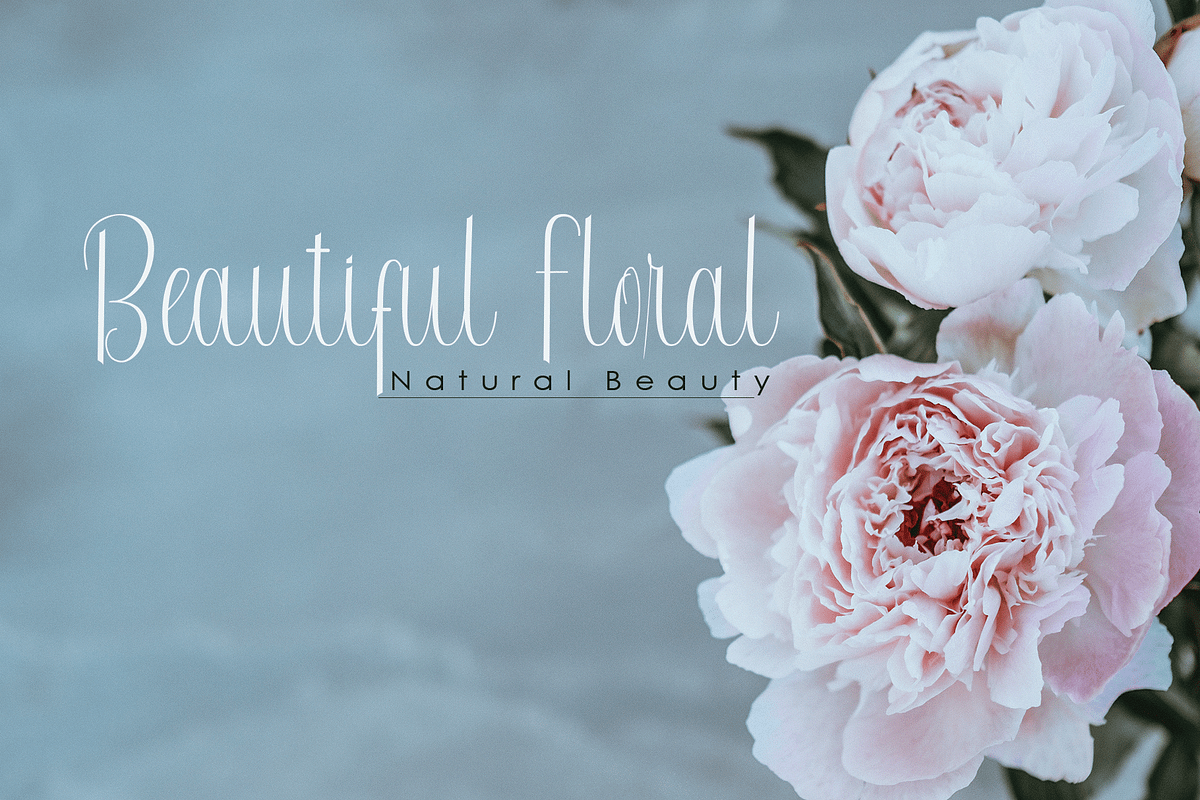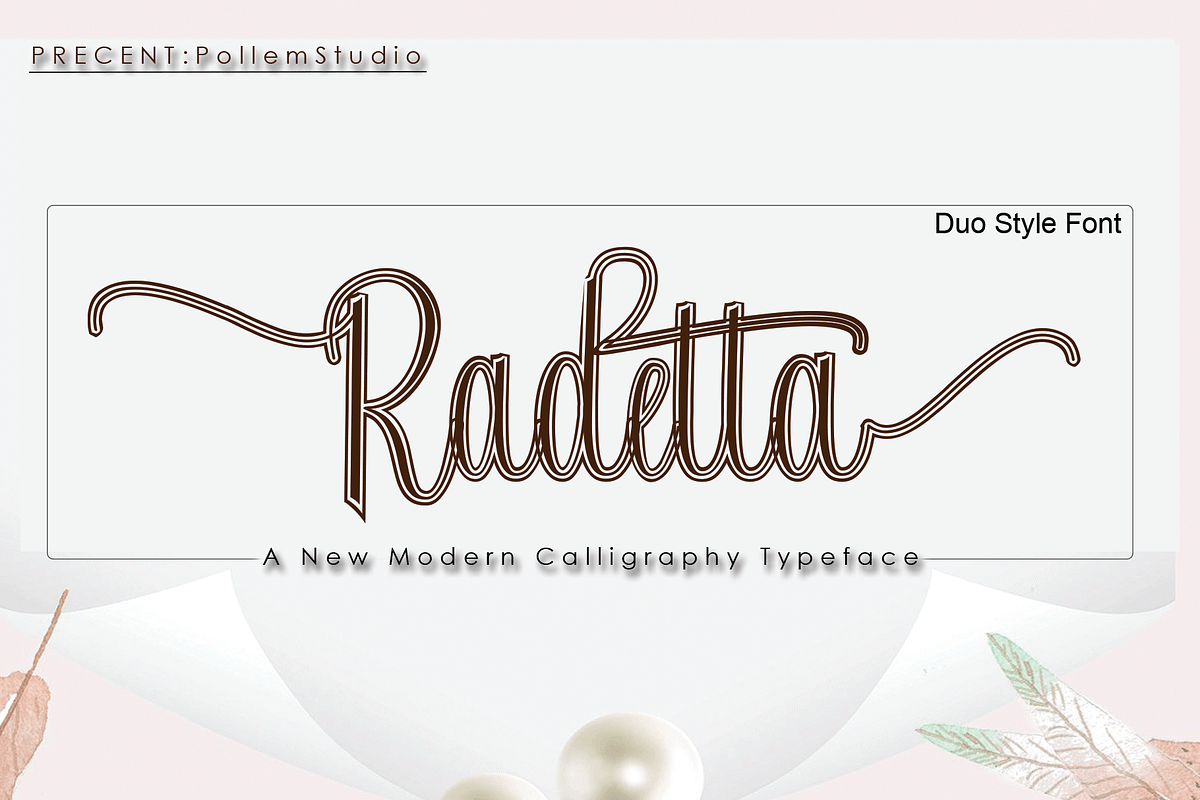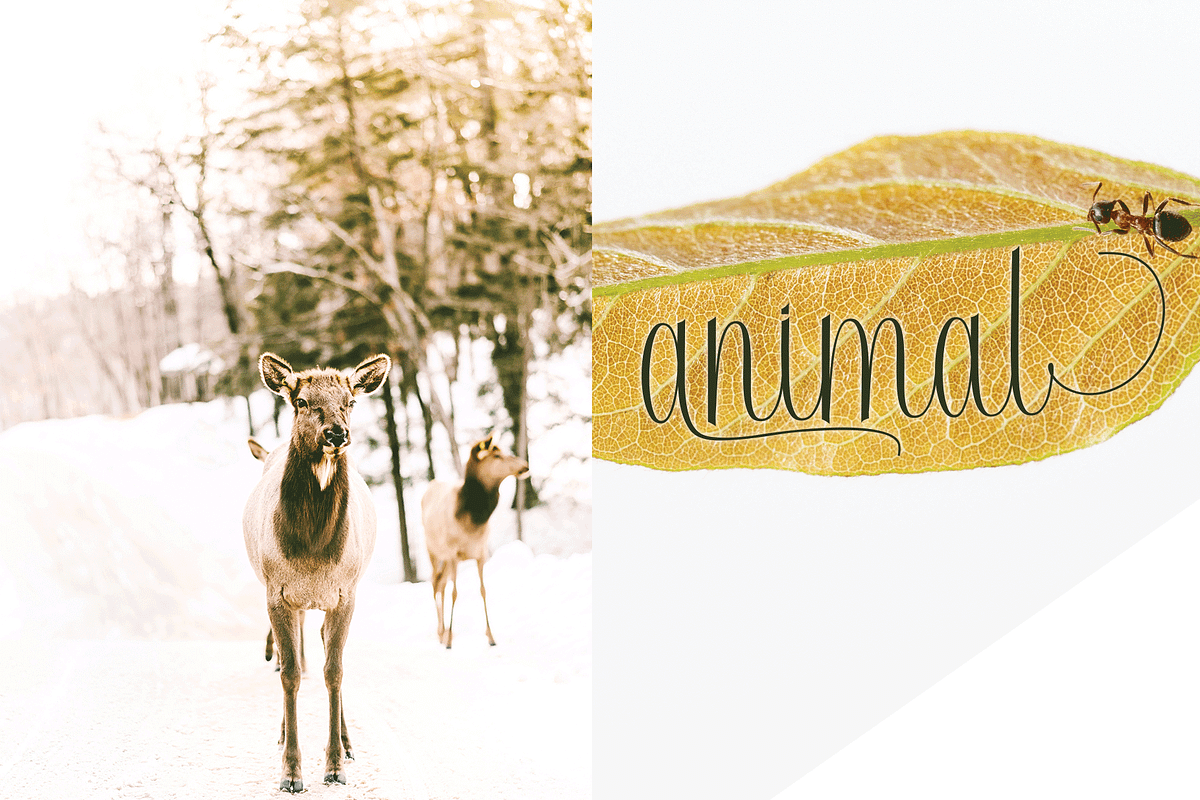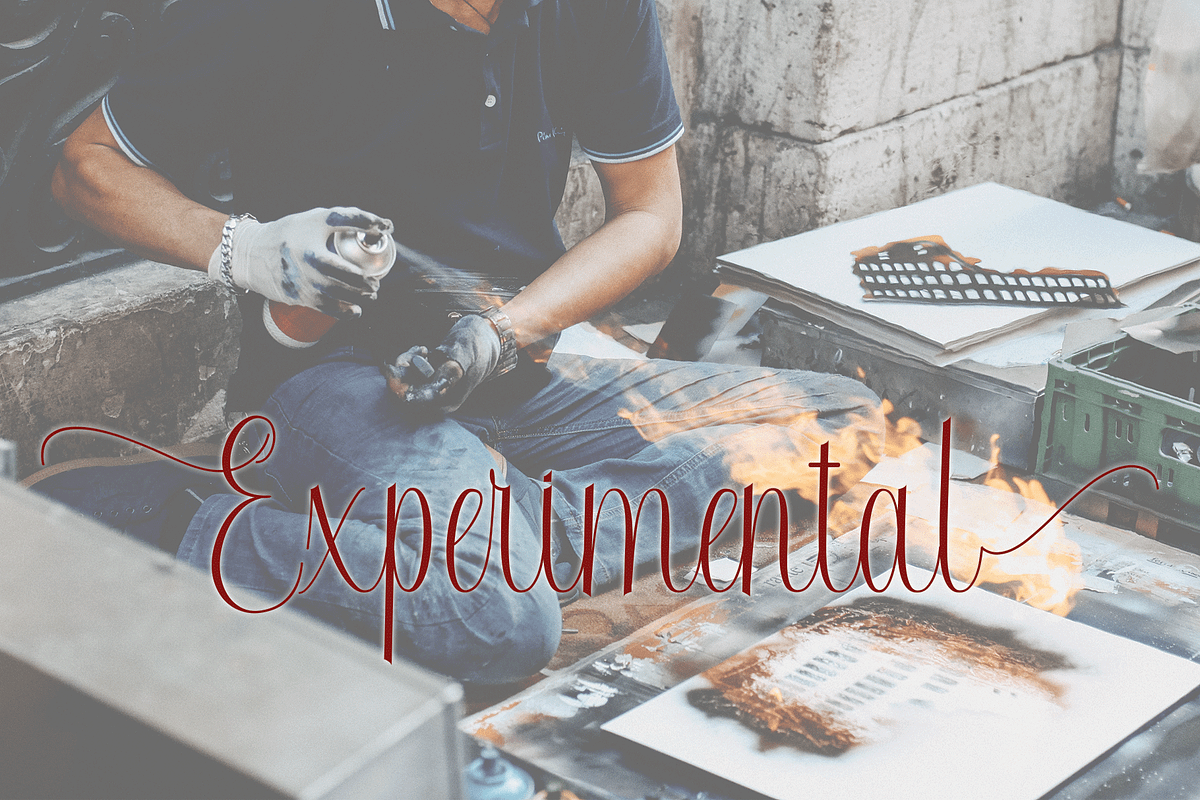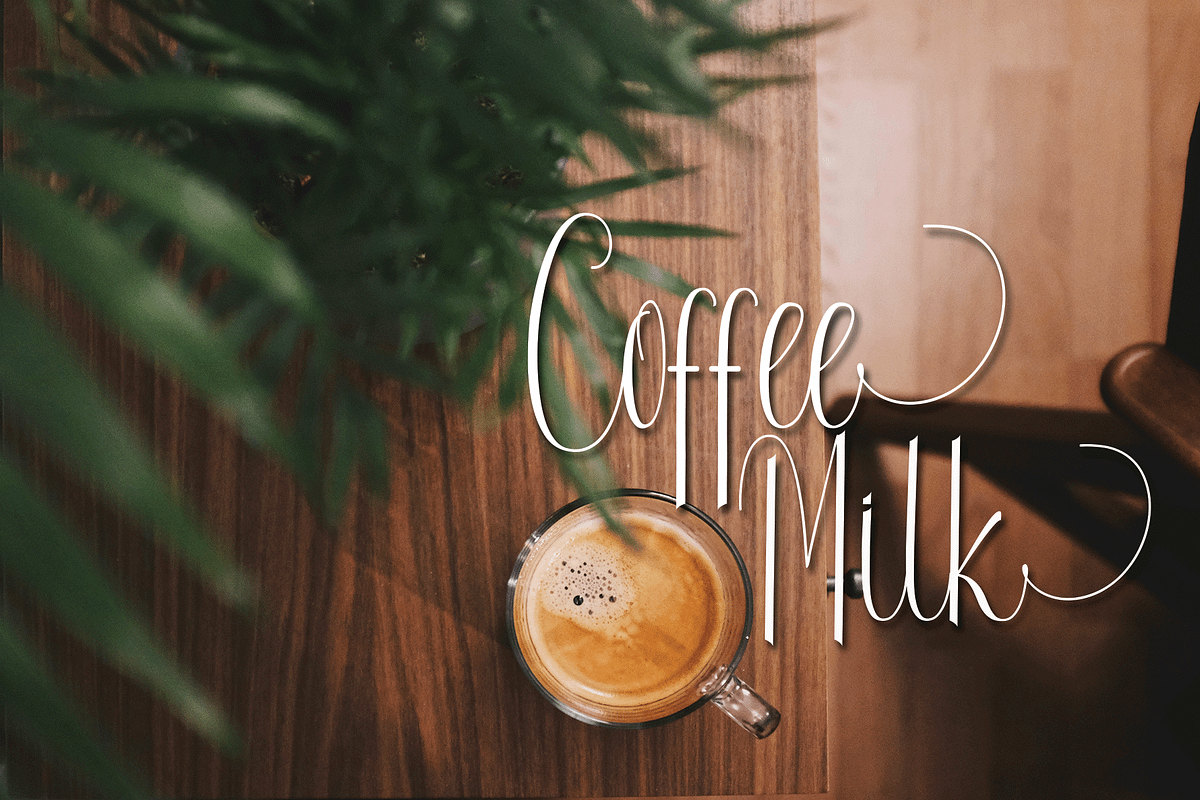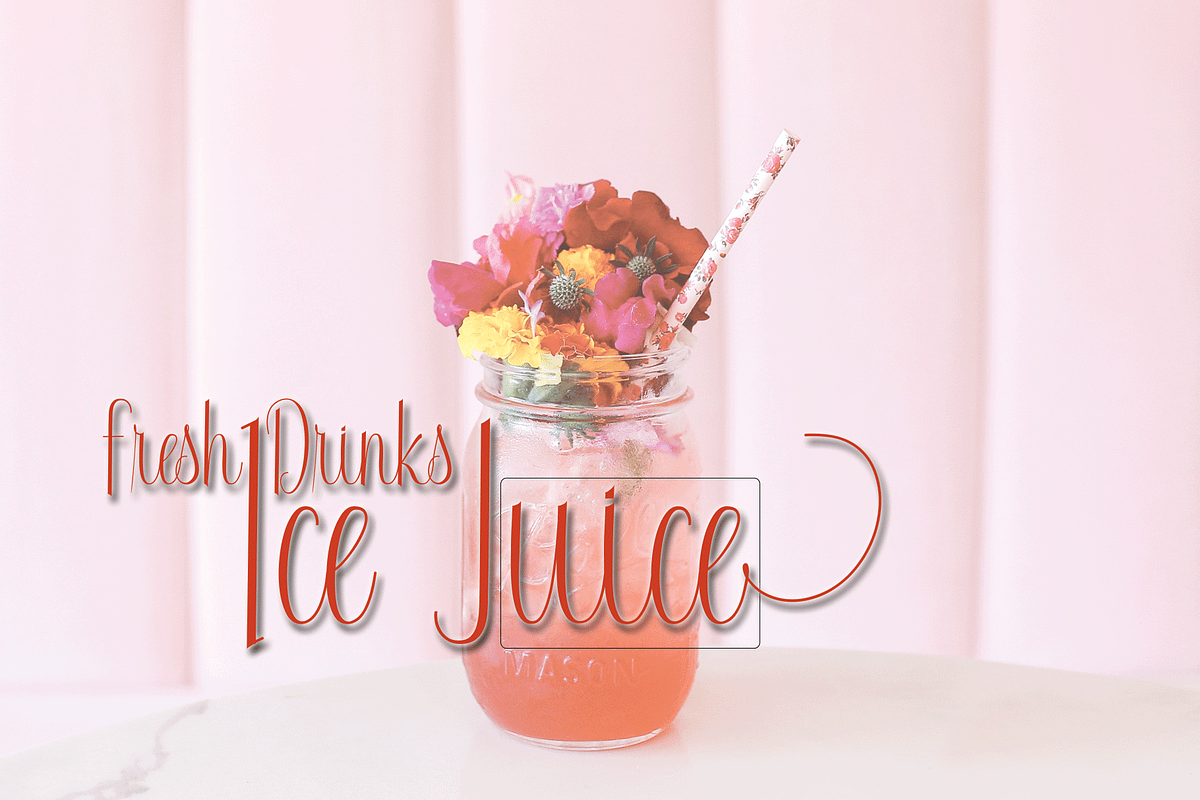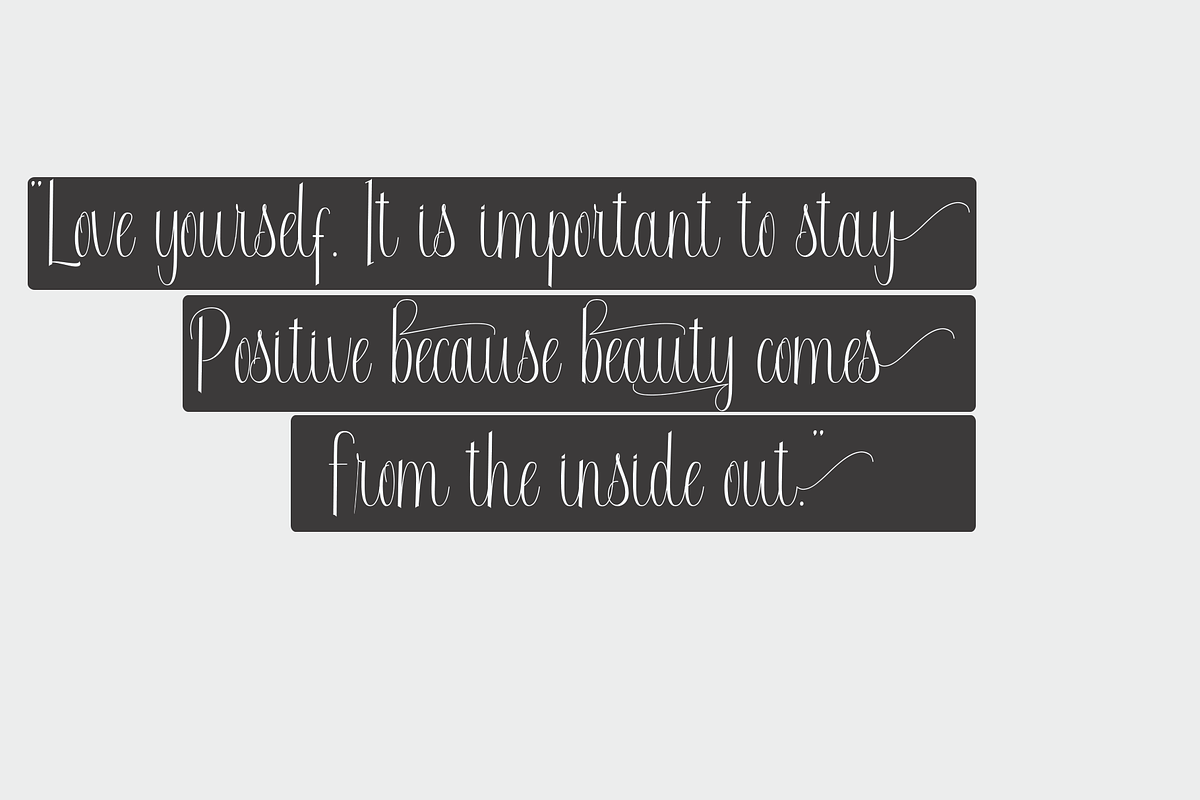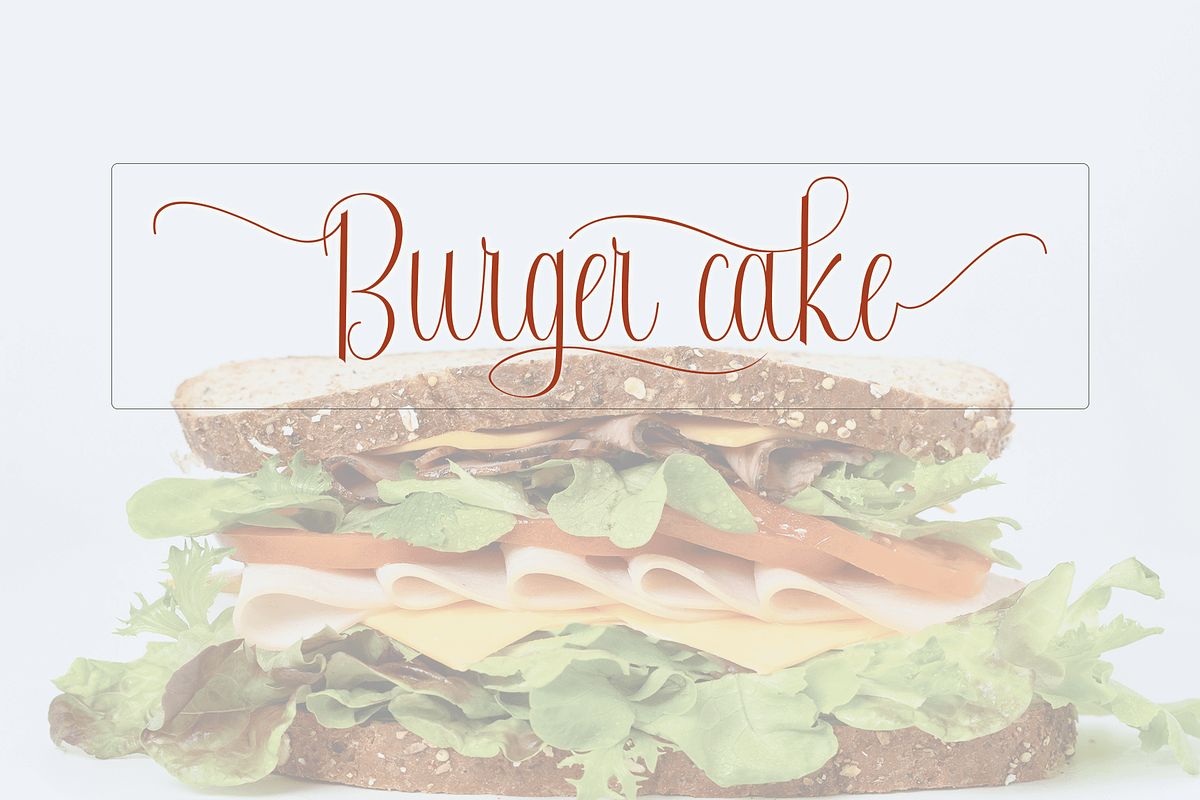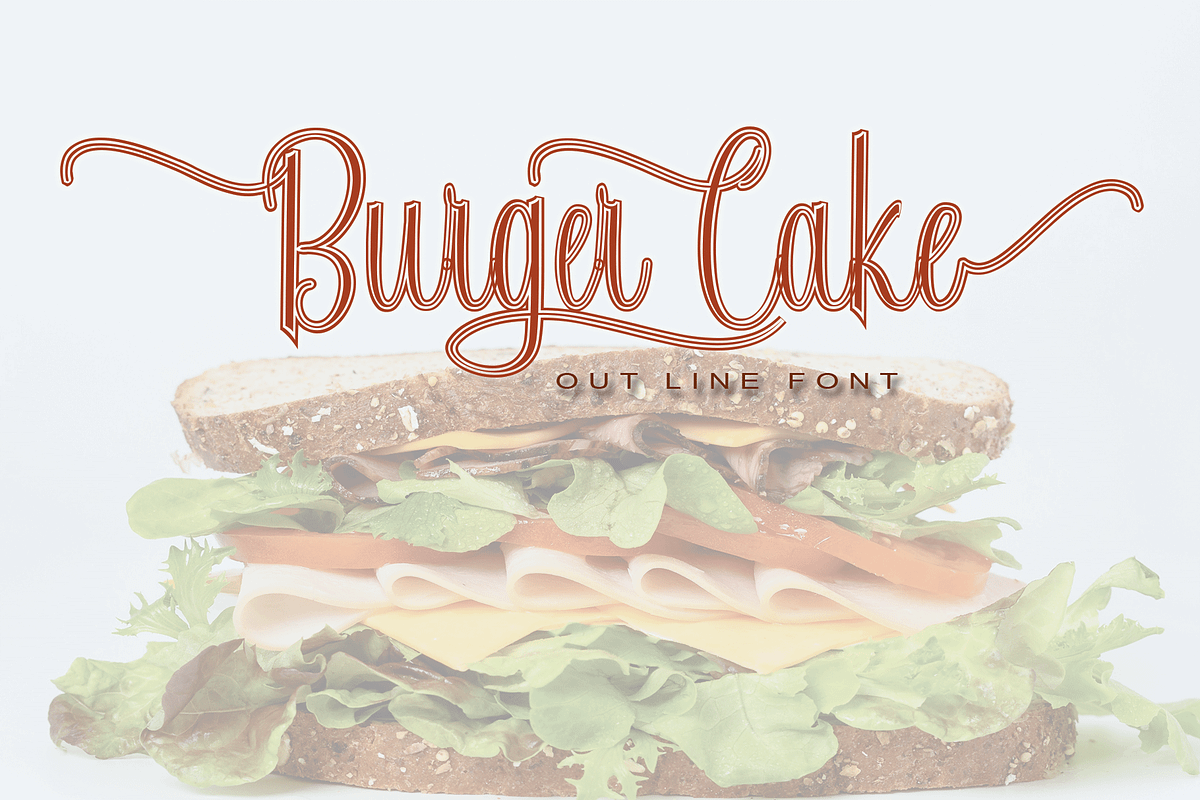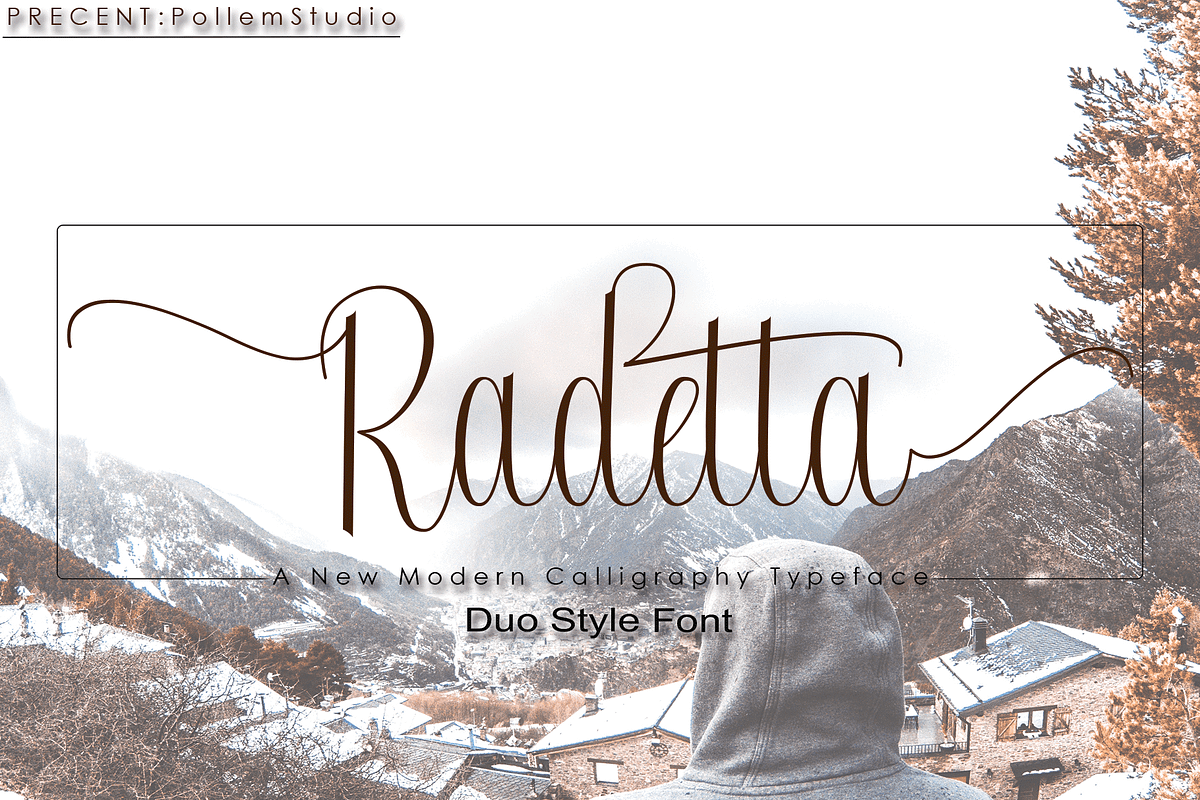
Radetta
Radetta Script
Radetta Font Script are duo fonts of Radetta Outline and Radetta regular stylish calligraphy that have a varied base line, fine lines, classic and elegant touches. Can be used for various purposes. Such as title, signature, logo, wedding invitation, t-shirt, letterhead, nameplate, label, news, poster, badge etc.
Radetta Script displays alternate characters. Includes initial letters and terminals, alternatives, ligatures and multiple language support.
The Features of this fonts is:
- Standart ligatures
- Stylistic sets
- Contextual Alternates
- PUA Unicode (Private Use Areas)
Radetta a font that made the hand by having the character up and down like a dancer. Radetta Font Duo has a very unique style of calligraphy, it is very suitable for use in the work of modern design.